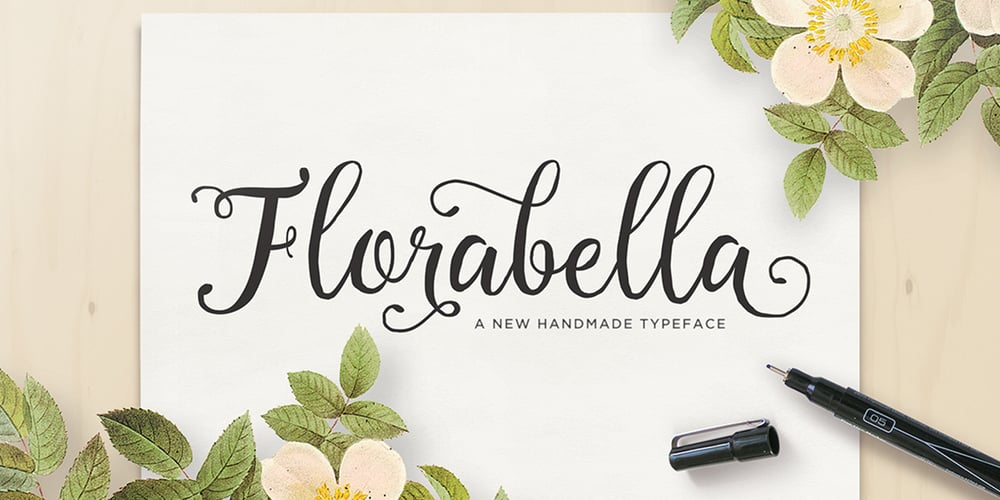
Florabella Script
Florabella Script font
Florabella Script Font Family was designed by Seniors Studio and published by Seniors Studio. Florabella Script contains 1 styles and family package options. Florabella is a new handmade script font with an irregular baseline. Rough edges create a trendy look and harmony. Florabella looks lovely on wedding invitations, thank you cards, quotes, greeting cards, logos, business cards and more. It is perfect to accompany ink or watercolour. Features 290+ glyphs and 110 alternate characters – including initial and terminal letters, alternates, ligatures and multiple language support.To enable the OpenType Stylistic alternates, you need a program that supports OpenType features such as Adobe Illustrator CS, Adobe Indesign & CorelDraw X6-X7, Microsoft Word 2010 or later versions.There are additional ways to access alternates/swashes, using Character Map (Windows),Nexus Font (Windows) or a software program such as PopChar (for Windows and Mac).